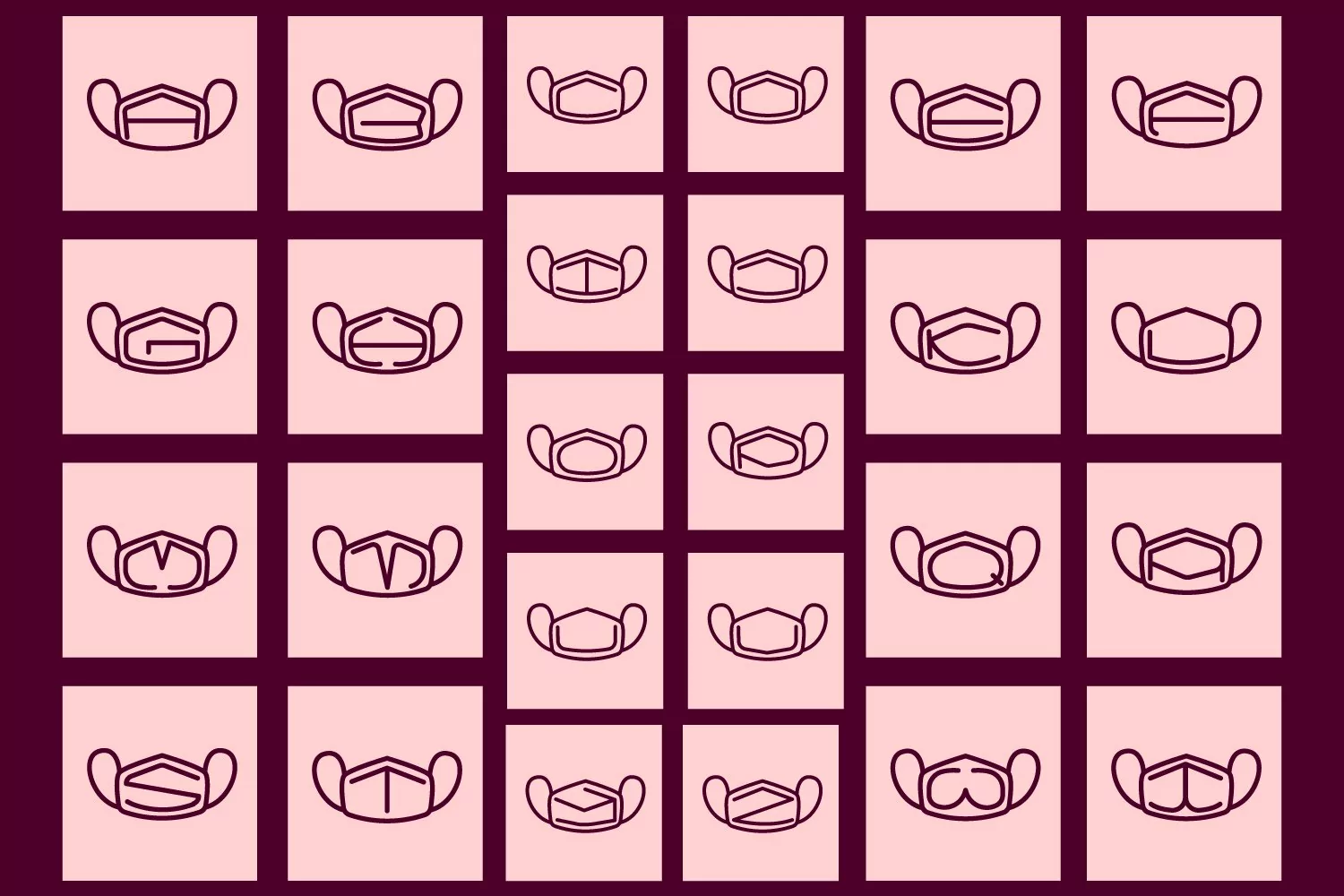
Presenting Cute font for you. A Mask Monogram Font Alphabets Face Mask Print Friendly can be used in tons of projects specially for child and new born projects. You can use it for craft purpose and this will looks great on shirts, printing material and other stuff.
2- UPPER Case only Letters A to Z
3- Super Cute and Creative